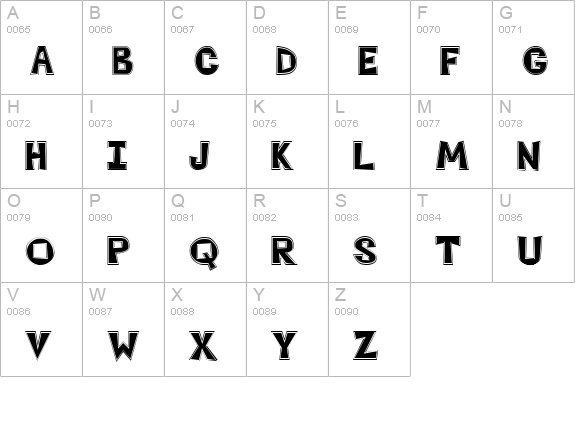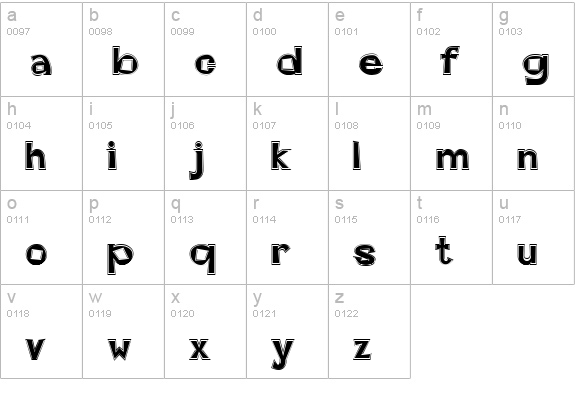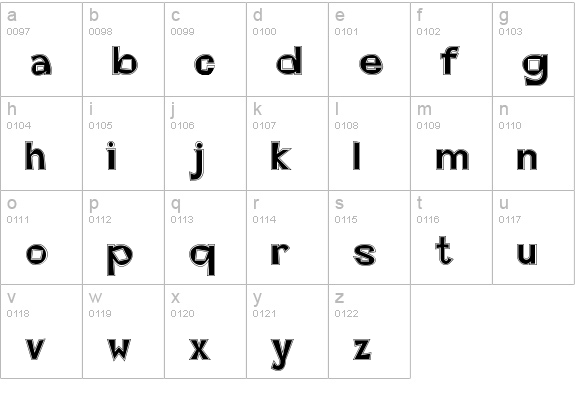
OnedinInline Font Details
Introducing OnedinInline font - a sleek and modern typeface that effortlessly combines elegance with a touch of playfulness. With its clean lines and unique design, OnedinInline is perfect for a wide range of design projects, from branding to invitations to social media graphics. And the best part? OnedinInline is completely free to download! Simply head over to FontsMarket.com to add this versatile font to your collection today. Whether you're a seasoned designer or just starting out, OnedinInline is sure to elevate your projects and make a lasting impression. Download it now and let your creativity shine with this stunning font.